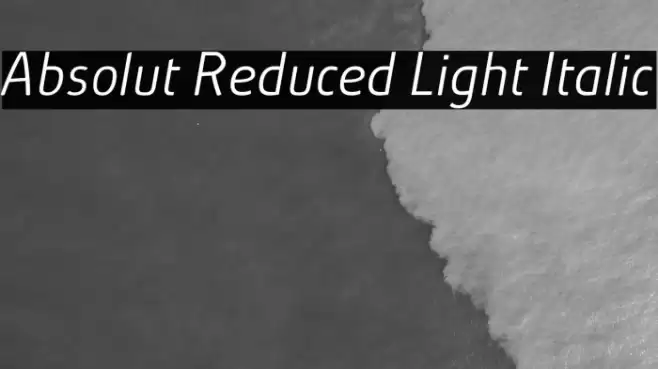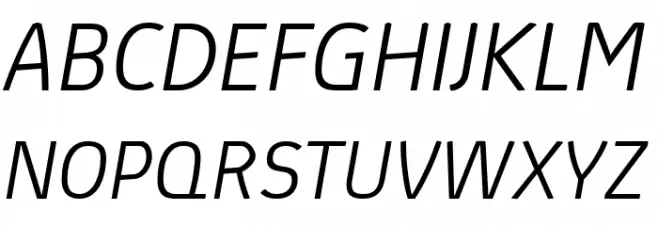
Absolut Reduced Light Italic Font
Absolut Reduced Light Italic Description
This font features a sleek and modern design with a light weight and italic style. The characters are slightly condensed, giving it a streamlined appearance. The strokes are consistent and smooth, with a low contrast between thick and thin lines. The overall look is clean and professional, making it suitable for a variety of applications. The uppercase and lowercase letters are well-proportioned, and the special characters are designed to complement the alphabet seamlessly.
A sleek, modern, light italic font with a streamlined appearance from Uncategorized fonts.
- Proposed Projects: Ideal for branding, editorial design, and digital interfaces where a modern and clean aesthetic is desired.